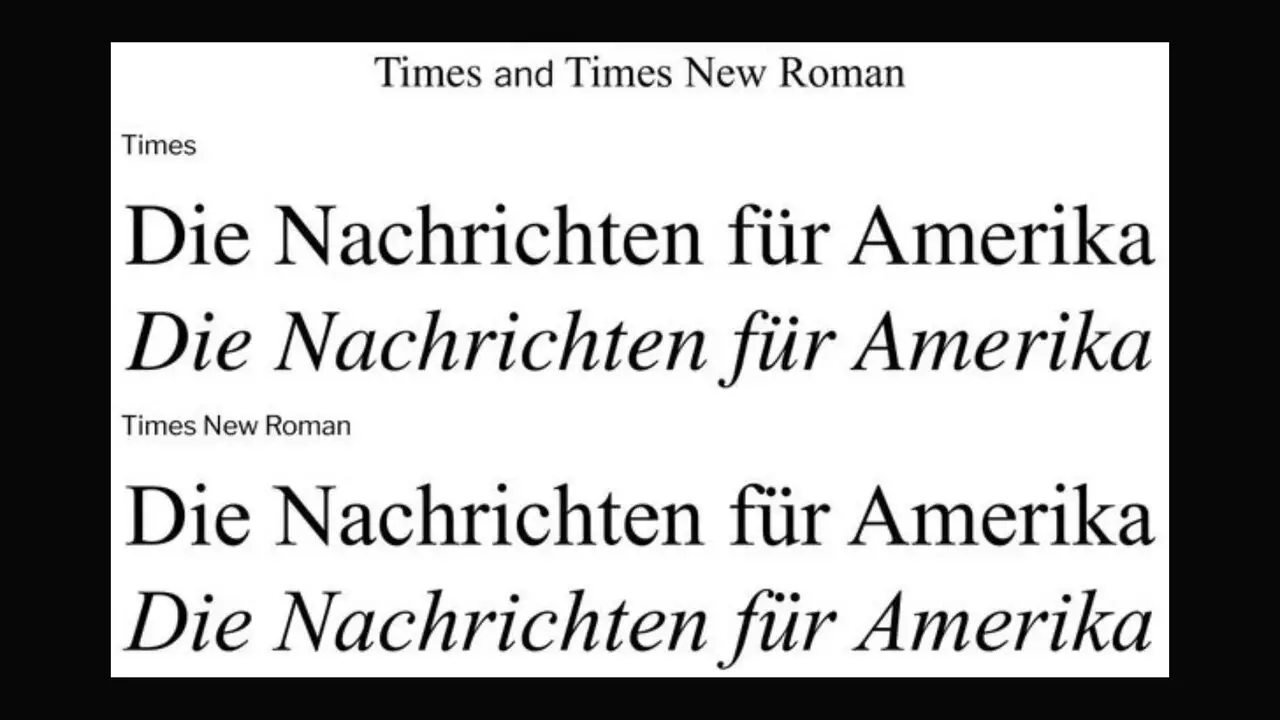
You have a few options if you’re looking for a font smaller than Times New Roman. One is to use a condensed version of Times New Roman, such as Times New Roman PS. Another option is to use a font thats specifically designed to be small, such as Courier 10 Pitch.
If you want to use a condensed font, Times New Roman PS is a good option. This font is a condensed version of Times New Roman, so it takes up less space.
Courier 10 Pitch is a good option if you want to use a font specifically designed to be small. This font is designed to be small and easy to read in small sizes.
What Is The Smallest Font Size That Can Be Used In Times New Roman?
The smallest font size that can be used in Times New Roman is 8pt. This is because the body of the text is set in 8/8.5pt, and anything smaller than this will make the text unreadable.
This is an example of 8pt text in Times New Roman:
In conclusion, the smallest font size used in Times New Roman is 8pt.
How Can You Make Text Appear Smaller In Times New Roman?
Is There A Limit To How Small You Can Make Text In Times New Roman?
Regarding the size of your text, there is no limit to how small you can make it in Times New Roman. This is because Times New Roman is a scalable font that can be resized to any size without losing its quality. So if you want to make your text as small as possible, Times New Roman is the way to go.
Why Would You Want To Make Your Text So Small In the First Place?
Well, there are a few reasons. For one, it can help to save space on a page. If you’re working on a document that is tight on space, making your text smaller can give you some extra room to work with.
Another reason to make your text smaller is for aesthetic purposes. If you’re creating a design that is meant to be clean and minimalistic, small text can help to achieve that look.
So if you want to make your text as small as possible, Times New Roman is the way to go. Remember that smaller text can be harder to read, so you may want to use it sparingly.
What Is The Difference Between Times New Roman And Other Fonts When It Comes To Font Size?